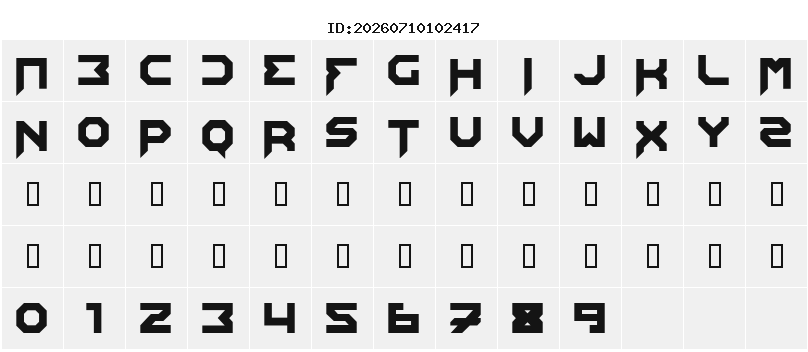
Edistys Preview
• Font Name: Edistys
• Full Font Name: Edistys
• PostScript Name: Edistys
• Character Count: 63
About Edistys.ttf
Edistys.ttf is a modern, elegant sans-serif font designed for ultimate readability and visual harmony. Perfect for branding, headlines, web design, and print materials.